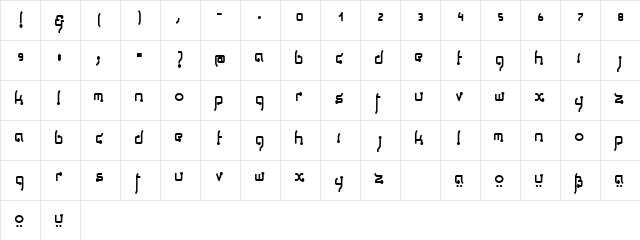
Thaiga Normal
Design Context for Thaiga Typeface
Thaiga offers clean, dependable letterforms without strong stylistic allegiance, making it a practical choice for designers who need flexibility.